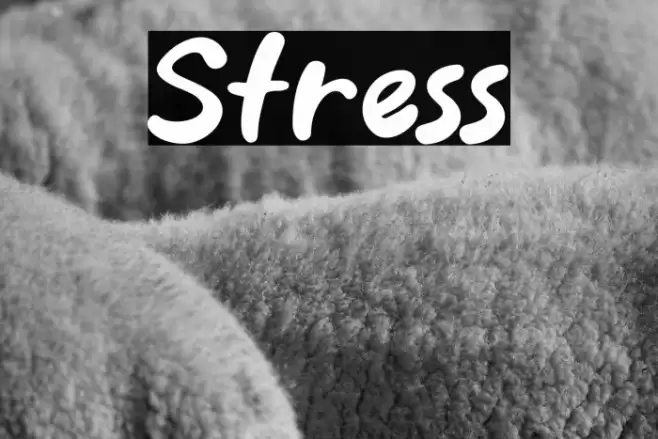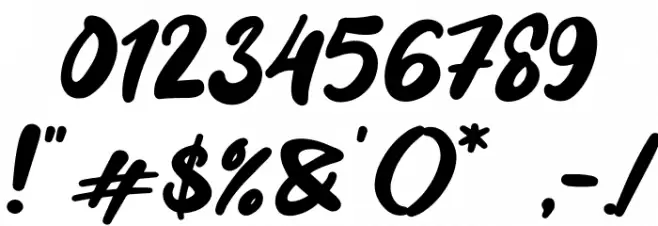
Stress Font
Stress Description
This font exudes a lively and dynamic energy, characterized by its bold and fluid strokes. The letters are crafted with a handwritten style, giving it a personal and informal touch. The uppercase and lowercase letters maintain a consistent flow, with rounded edges and a slight slant that adds to its playful nature. The numbers and special characters are equally expressive, ensuring a cohesive look across all elements. This font is perfect for projects that require a touch of personality and flair, making it ideal for creative designs.
A bold, handwritten font with fluid strokes and a playful style from Regular fonts.
- Font: Stress
- Proposed Projects: Ideal for greeting cards, posters, branding, and social media graphics.